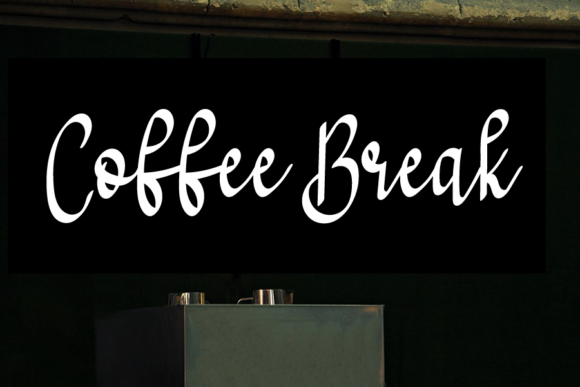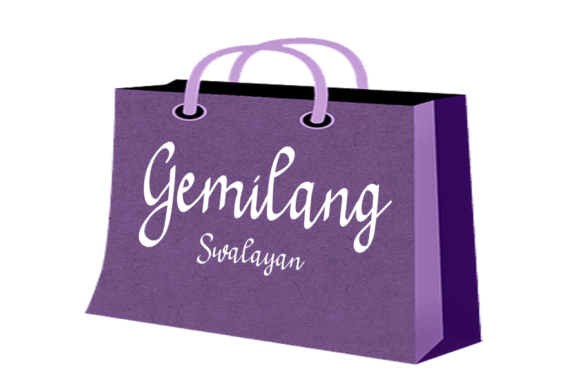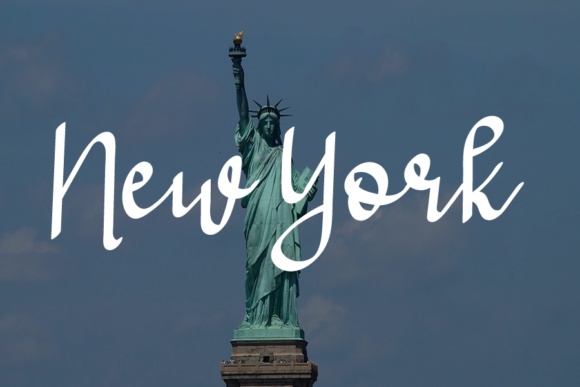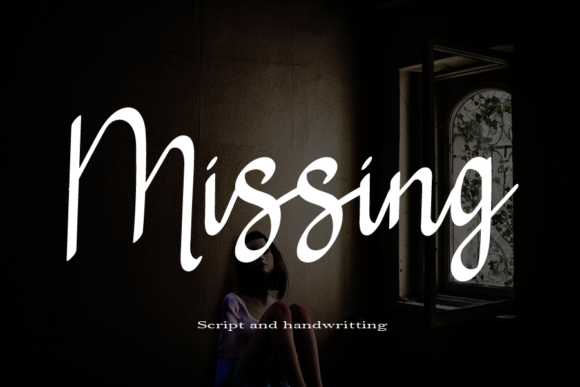
Introduction to Missing Font
Missing is a dainty and unique handwritten font.
Add this romantic and lovely looking font to each of your love letters, wedding invitations or favorite design ideas, and you will be astounded by the outcome .
Key Features of Missing Font
Why Choose Missing Font?
Missing Font offers exceptional quality and versatility, making it a valuable addition to your design toolkit. Whether you’re creating for personal projects or commercial use, Missing Font delivers professional results.